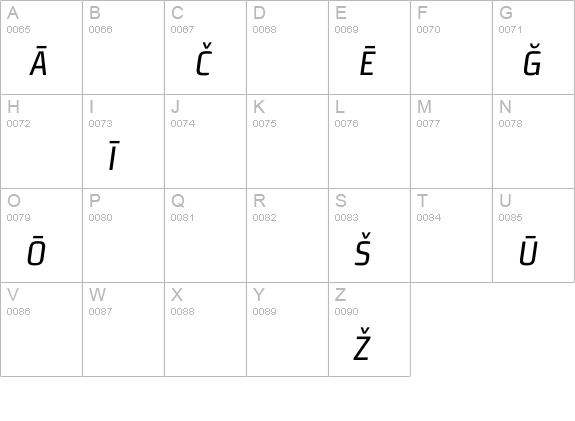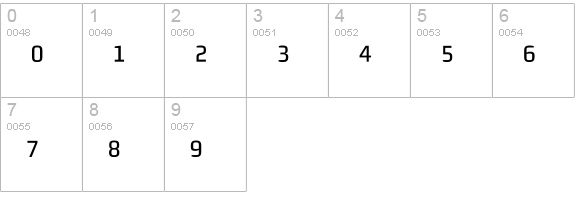
MorganSansCond ItalicPi Font Details
MorganSansCond ItalicPi is a modern and stylish font that exudes elegance and sophistication. With its sleek and slanted design, this font adds a touch of flair to any project. The Italic style adds a sense of movement and dynamism, making it perfect for conveying a sense of creativity and innovation. What sets MorganSansCond ItalicPi apart is that it is available for free download at FontsMarket.com. This means that you can easily access this high-quality font without any cost, making it an excellent choice for designers and creatives looking to enhance their work without breaking the bank. Whether you're working on a branding project, advertising campaign, or any other design endeavor, MorganSansCond ItalicPi is sure to make a statement. Its unique combination of sophistication and creativity will help your work stand out and leave a lasting impression on your audience. Download MorganSansCond ItalicPi today and elevate your designs to the next level.